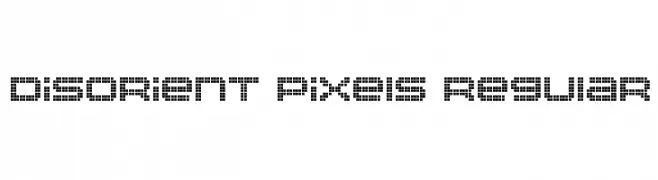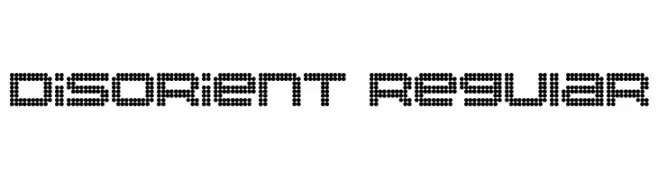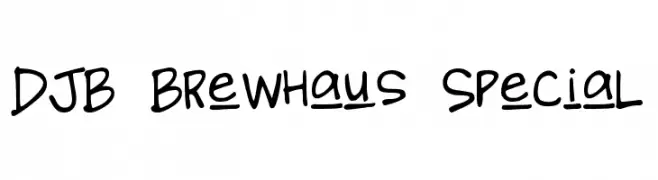
A bold, textured font with a hand-drawn, rustic appearance.
A bold, textured font with a hand-drawn, vintage look.
A bold, distressed font with a grunge aesthetic and irregular, dripping edges.
A bold, geometric font with a modern, art deco-inspired style.
A dynamic, handwritten script with expressive, fluid strokes.
A modern, outlined font with a double-line structure and geometric shapes.
A bold, hand-drawn font with an expressive and textured style.
A dynamic, brush-stroke italic font with expressive, energetic style.
A bold, brush-like handwritten font with an italicized, left-leaning style.
A bold, brush-like font with dynamic, expressive strokes.
A bold, rounded font with a modern and slightly retro style.
A thin, elegant font with elongated strokes and a minimalist aesthetic.
A delicate, sketch-like font with thin, hand-drawn lines and a whimsical aesthetic.
A 3D dot matrix font with a futuristic and digital aesthetic.
A dot-matrix style font with a modern, digital appearance.